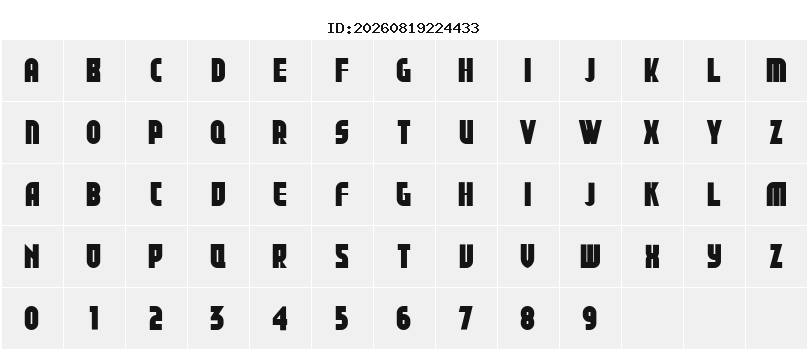
• Font Name: Shall We Gdansk NF
• Font ID: Nick'sFonts: Shall We Gdansk NF: 2006
• Full Font Name: Shall We Gdansk NF
• PostScript Name: ShallWeGdanskNF
• Character Count: 217
• Designer: Nick Curtis
• Manufacturer: Nick's Fonts
About Shall We Gdansk NF.ttf
Shall We Gdansk NF.ttf is a modern, elegant sans-serif font designed for ultimate readability and visual harmony. Perfect for branding, headlines, web design, and print materials.